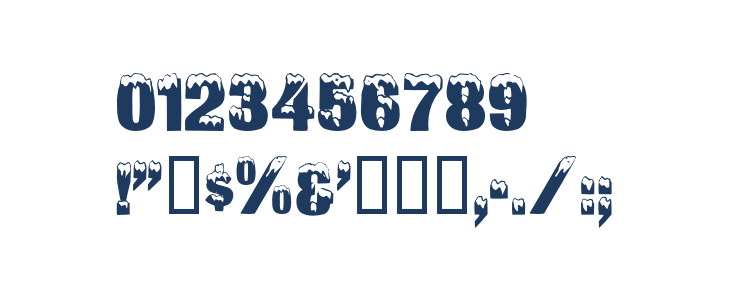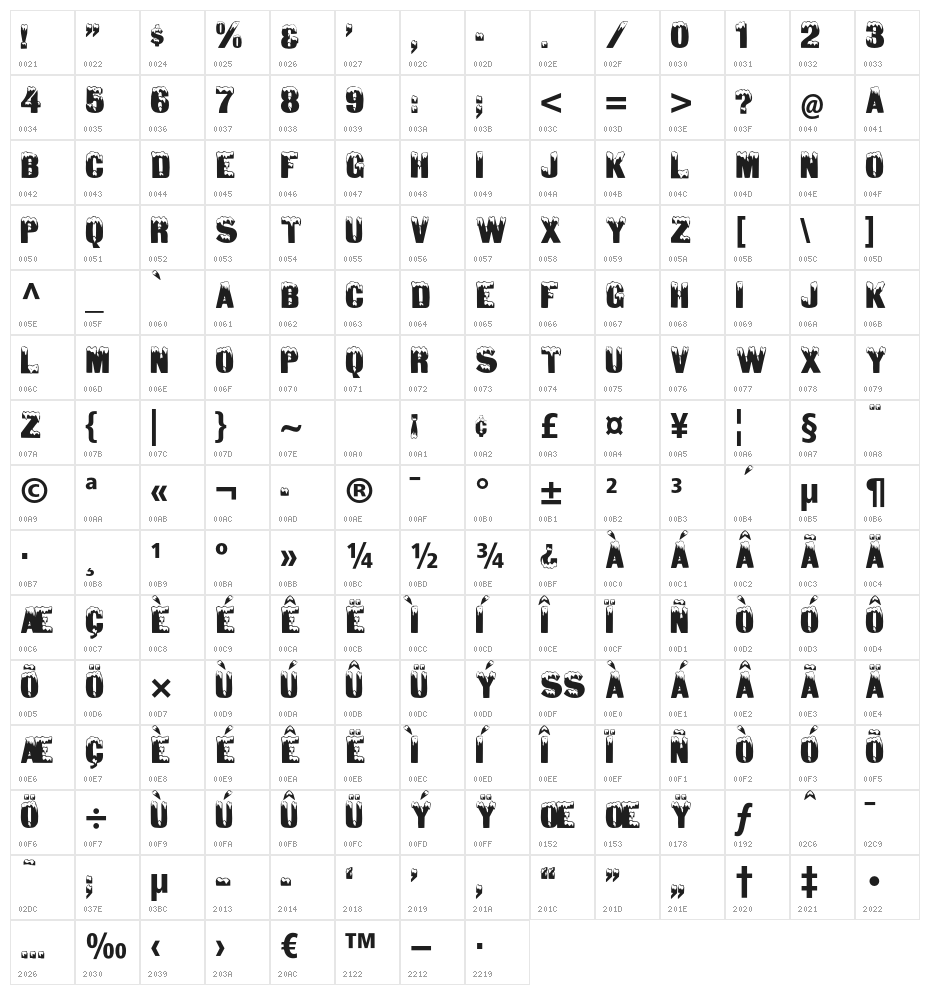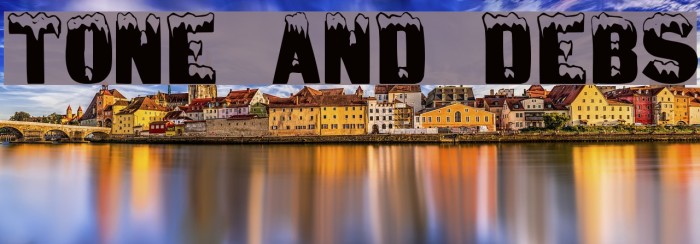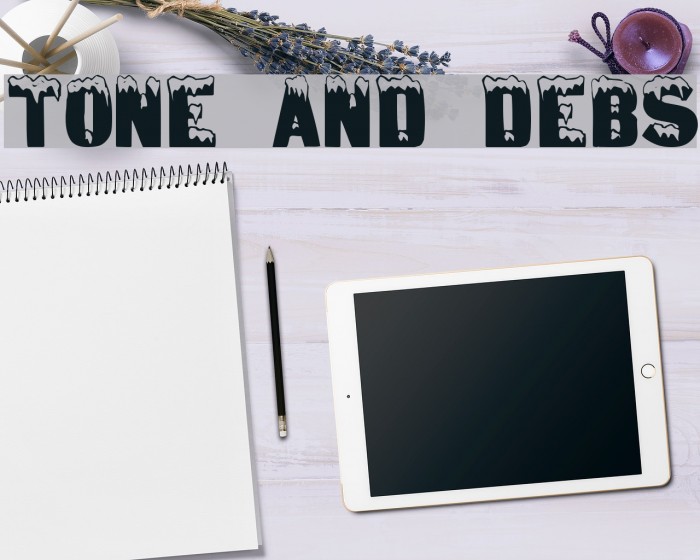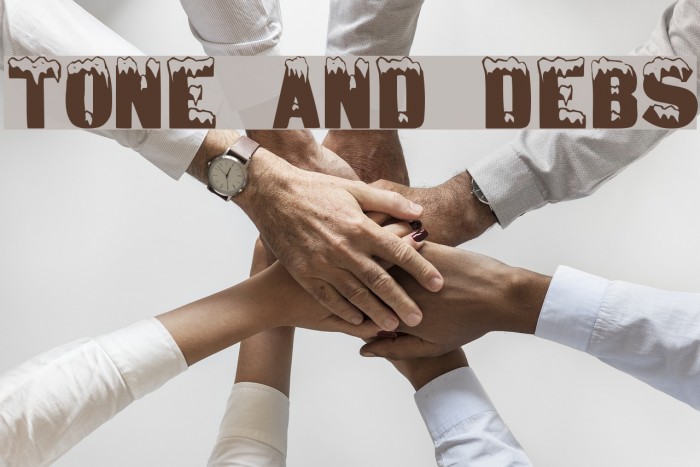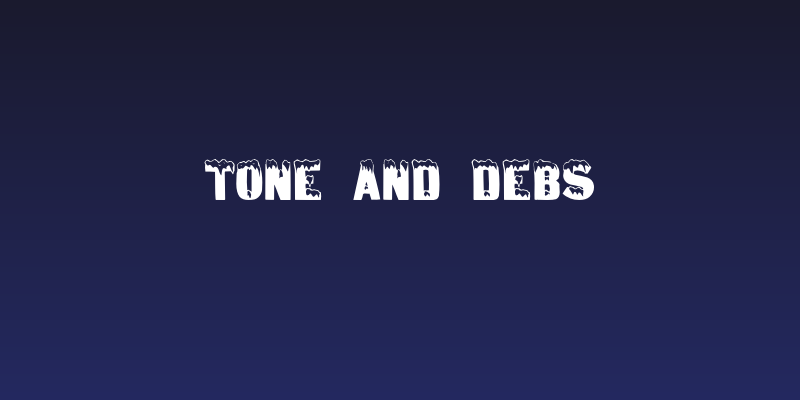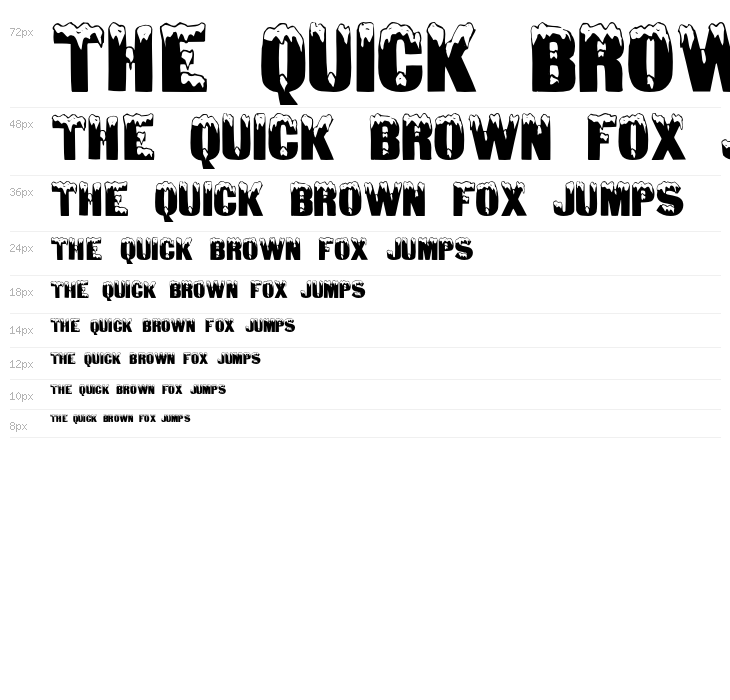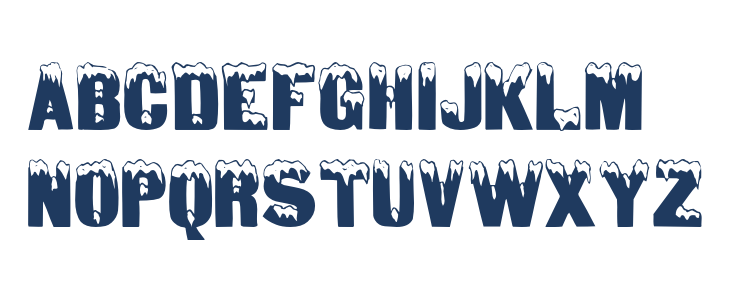
Tone And Debs Font
Tone And Debs Description
This font features bold, uppercase letters with a playful and decorative style. Each character is topped with a snow-like texture, giving it a wintery, festive appearance. The design is eye-catching and ideal for holiday-themed projects. The characters are evenly spaced, with a consistent width and height, ensuring readability while maintaining a unique and whimsical aesthetic. The numbers and special characters follow the same design, making the font versatile for various uses. Its boldness and decorative elements make it stand out, perfect for capturing attention in creative designs.
| Proposed Projects | Holiday cards, winter event posters, festive banners, seasonal advertisements. |